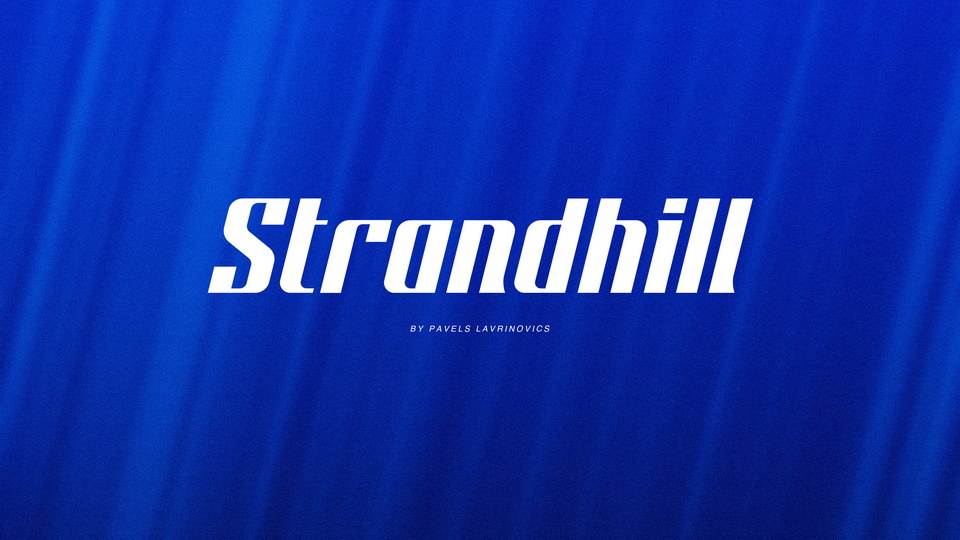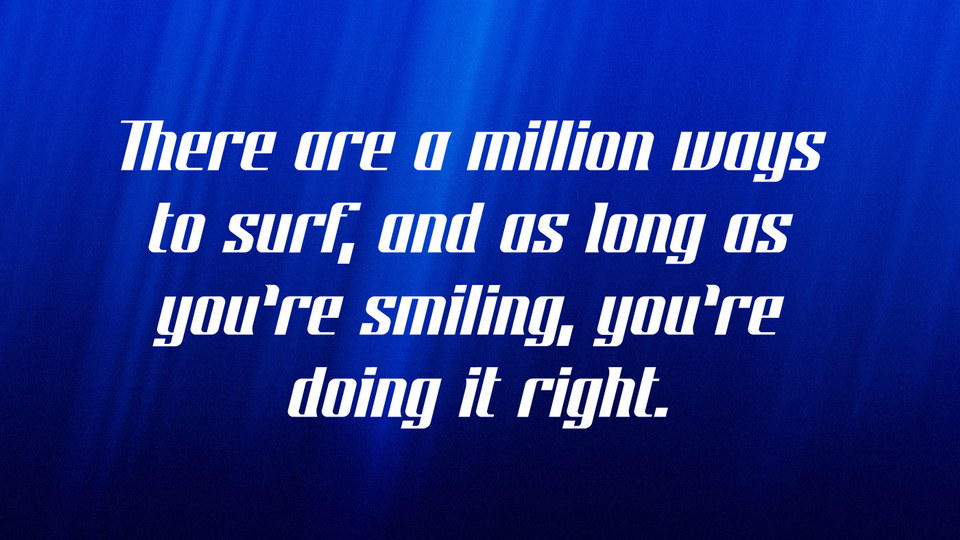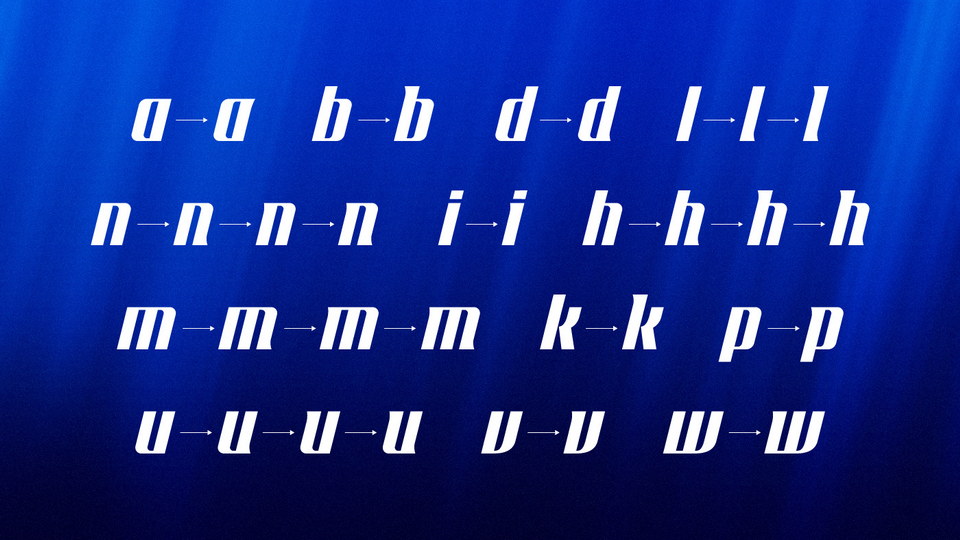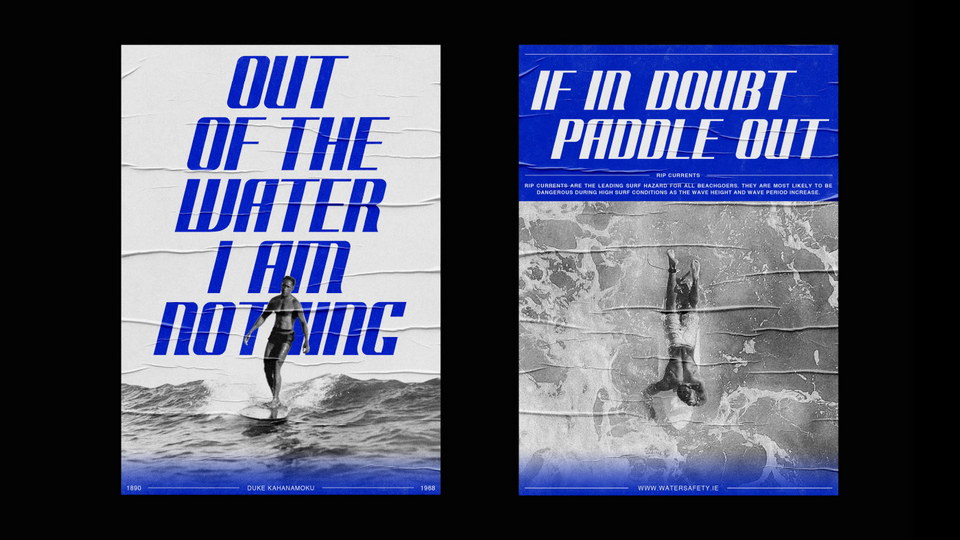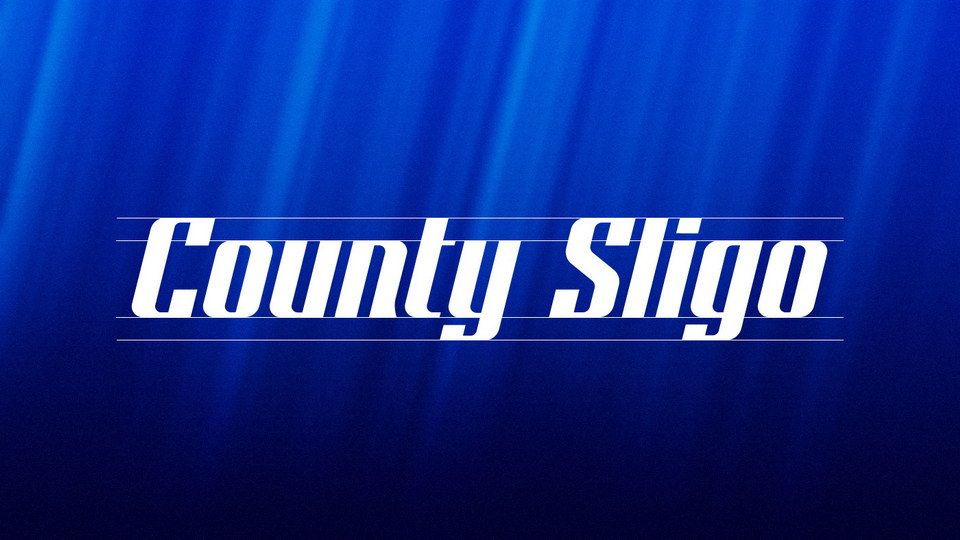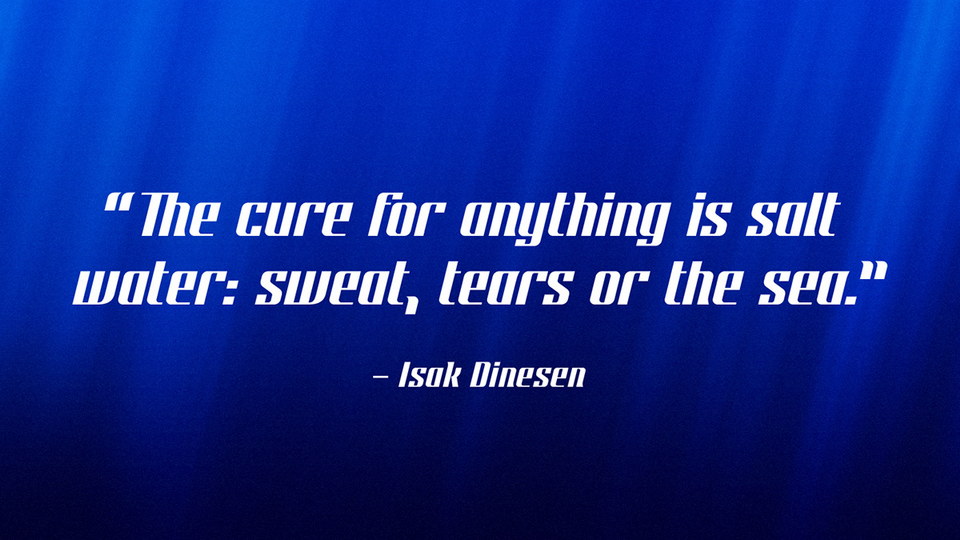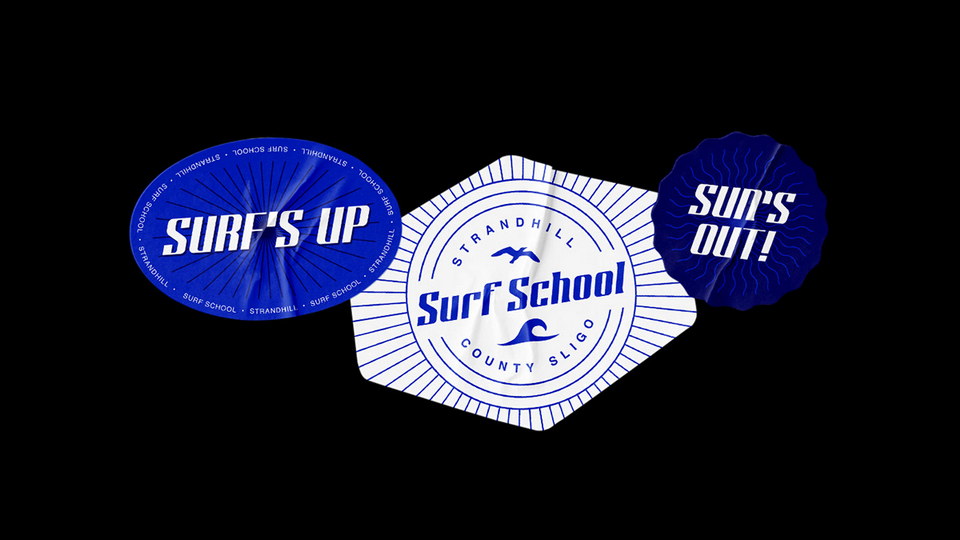
Strandhill is a display font designed during lockdown in a surf focused Irish town called Strandhill. These slanted characters aim to represent the movement of surfing and other sports. It’s structure and forms are inspired by blackletter.
Created for large type setting this font consists of alternate characters some of which contain sharp wave like curves. These curves can be turned on and off to work better with other characters depending on text.